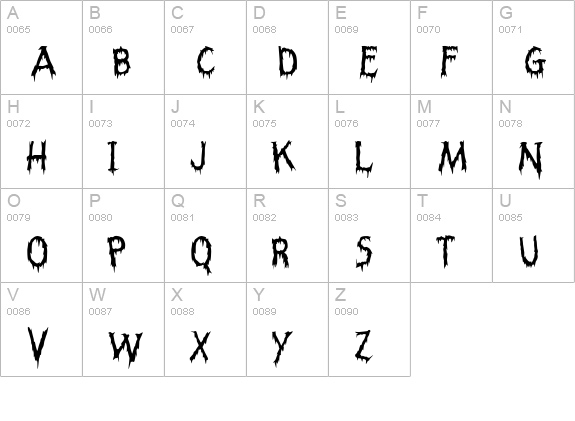
Dagger Font Details
Introducing Dagger font, a bold and charismatic typeface that exudes strength and sophistication. This font is perfect for those seeking a powerful and edgy look for their designs. With its sharp angles and sleek lines, Dagger commands attention and makes a bold statement. Designed with versatility in mind, Dagger is suitable for a wide range of creative projects, from logos and branding to headlines and posters. Its unique and intricate letterforms add a touch of intrigue and excitement to any design. One of the best things about Dagger font is that it's completely free! Available to download at FontsMarket.com, this font allows you to bring your vision to life without any cost. Whether you're a professional designer or someone who simply loves experimenting with typography, Dagger font gives you the freedom to create stunning visuals without breaking the bank. With its seamless legibility and stylish aesthetic, Dagger font is sure to leave a lasting impression on your audience. Its bold presence and captivating design make it an excellent choice for anyone looking to make a statement. So why wait? Download Dagger font today and embark on a creative journey that is bound to turn heads and elevate your designs to new heights.